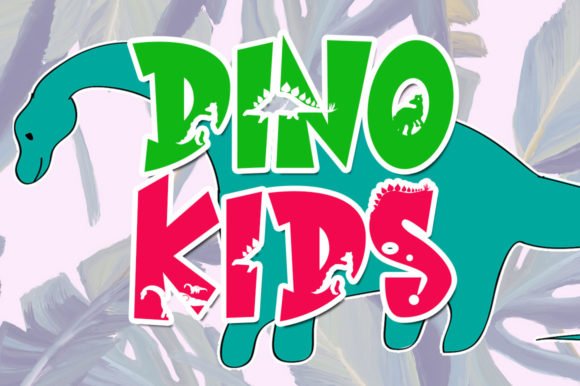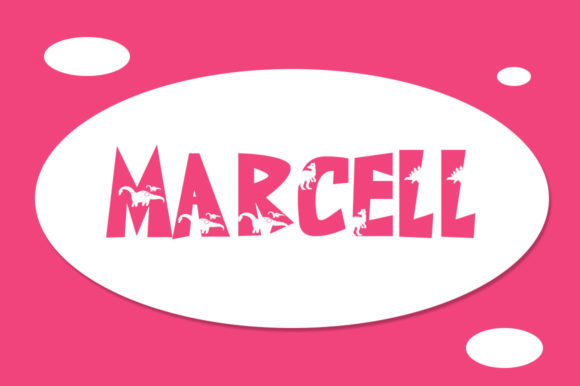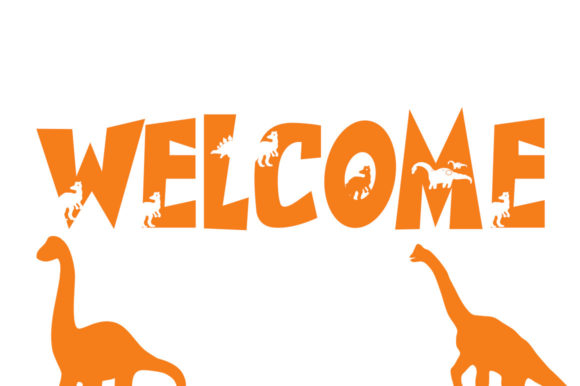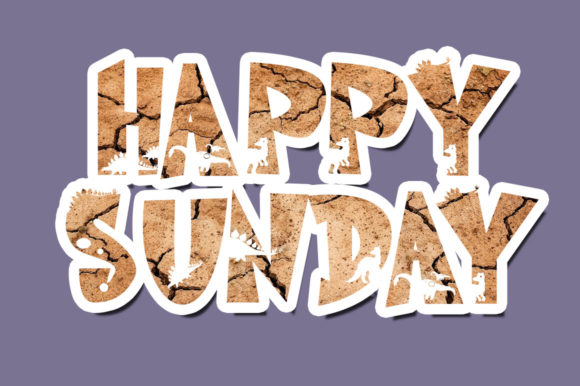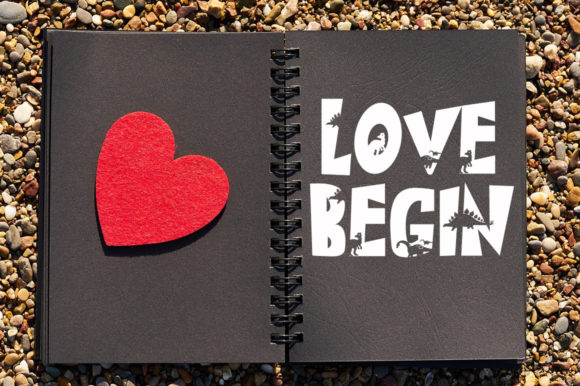
Unleashing the Roar of Creativity: Introducing Dino Kids Font
Have you ever stared at a blank canvas, searching for the perfect spark to ignite your imagination? For designers, it’s a familiar feeling – the thrill of bringing a new idea to life, and the struggle to find the right tools to make it shine. That’s where Dino Kids Font comes in, a quirky and bold display font that’s sure to bring a smile to your face and a spring to your creative step.
This charming font is designed specifically for cartoon-related designs, children’s games, and any project that requires a playful touch. With Dino Kids Font, you’ll be able to add a dash of whimsy and fun to your work, making it a valuable addition to any designer’s toolkit. Whether you’re a seasoned pro or just starting out, this font is sure to inspire your next big project.
Dino Kids Font Key Features
- Unique Character Set: The Dino Kids Font includes a wide range of characters, including uppercase and lowercase letters, numbers, punctuation marks, and special symbols, making it suitable for various applications.
- Color and Gradient Options: The font supports color and gradient fills, allowing designers to add visual interest and depth to their designs.
- Multi-Lingual Support: The font includes support for multiple languages, including English, Spanish, French, German, Italian, and more, making it a great choice for global brands and businesses.
Dino Kids Font Review
As a designer, I recently had the chance to work with the Dino Kids Font. Here’s my honest take on this fun and playful typeface.
- ✨ The font is incredibly versatile and can be used for a variety of applications, from children’s books to educational materials.
- ✨ The design is both modern and nostalgic, making it a great choice for projects that need a bit of character.
- ✨ The font is well-suited for bold, eye-catching headlines, and the subtle texture adds depth and visual interest.
- ⚠️ The font may be too playful for more formal or professional applications, and some users may find it distracting or overused.
- ⚠️ The font family is relatively small, with only a few weights and styles available, which may limit its versatility in certain projects.
Overall, I think the Dino Kids Font is a great choice for designers looking for a fun and engaging typeface. While it may not be suitable for every project, it’s perfect for applications that need a bit of whimsy and personality. With its modern design and nostalgic charm, I think this font is sure to delight both kids and adults alike.
Tips for Getting the Most Out of the Dino Kids Font
Use the Dino Kids Font for children’s educational materials, party invitations, and other fun designs. Experiment with different font sizes and colors to create a unique look.
The Dino Kids Font is perfect for:
- Children’s party invitations
- Education materials (e.g., worksheets, posters)
- Fun and playful social media graphics
Alternatives to Dino Kids Font for Designers
Pacifico is a beautiful, elegant script font that is perfect for creating a whimsical and playful atmosphere. It is ideal for use in logos, branding, and packaging design. When to use: When you want to create a sense of sophistication and elegance, but still want to maintain a childlike charm.
Comparison to Dino Kids Font: While Dino Kids Font is more cartoonish and playful, Pacifico Font has a more refined and sophisticated look. However, both fonts share a similar sense of whimsy and playfulness.